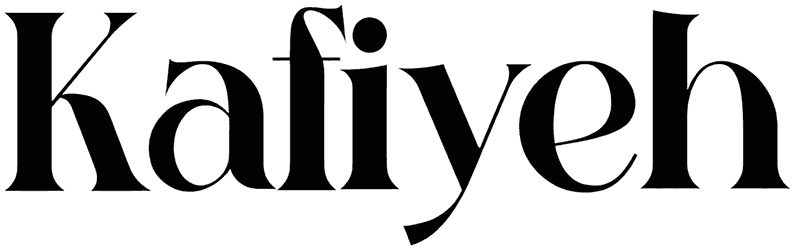
Kafiyeh Font
Generating a royal quality from top to bottom, Kafiyeh surely does a great job keeping its end of the bargain as a serif font. With its highly refined characters in charge, your words always end up in the center of attention.
Imagine all the additional prestige you can invite to your business cards by simply adding this gold font to your texts, and letting it introduce your brand of fashion, restaurant, and other high-end products and luxury services like that.